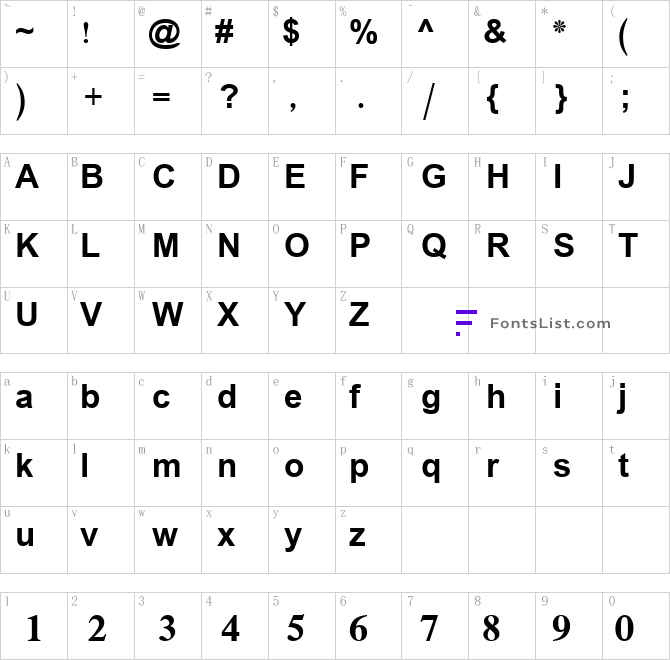
- Font Name:Arabic Transparent
- Subfamily:Agfa Simplified Arabic Bold
- Full Name:Arabic Transparent Bold
Arabic-Transparent-Bold-copy-2-.ttf is a very beautiful artistic font, Arabic-Transparent-Bold-copy-2-.ttf is widely used in the design and printing of various books and pictures,Arabic-Transparent-Bold-copy-2-.ttf has a strong visual impact,Arabic-Transparent-Bold-copy-2-.ttf is a commonly used font in newspapers, magazines and books, and is used in posters, e-commerce Poster design, store design, logo design, font design and other fields.Arabic-Transparent-Bold-copy-2-.